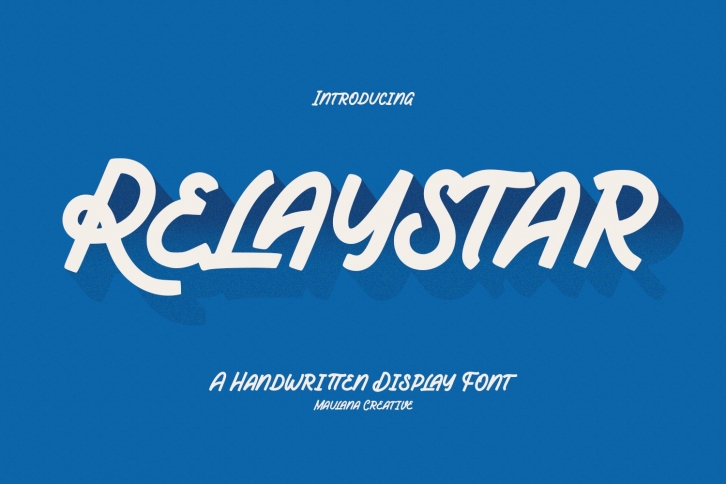
Relaystar Handwritten Script is a trendy and unique font with an authentic style. It was designed by Maulana Creative and it's a great choice for creative people who need such a font. It was released on June 16, 2022 and the file size is 21.59 MB. Relaystar Handwritten Script will add an organic vibe to any design idea!